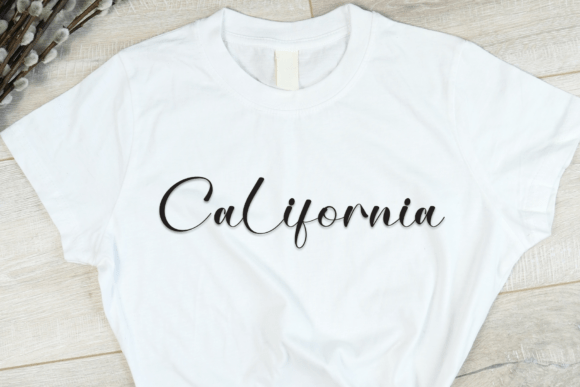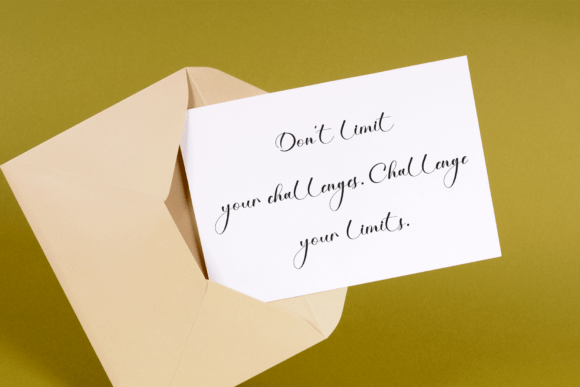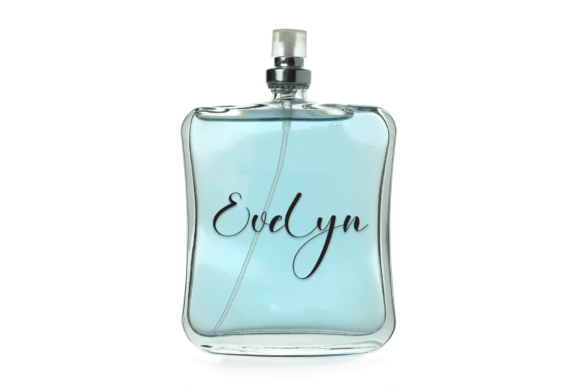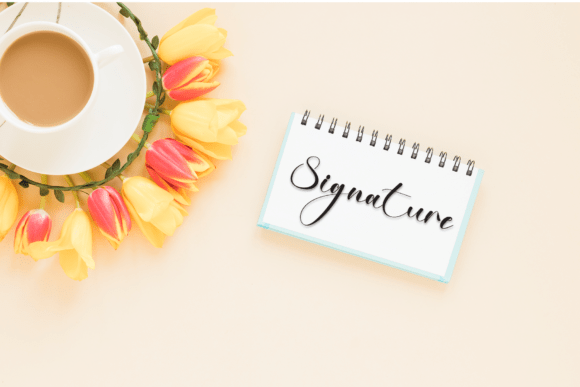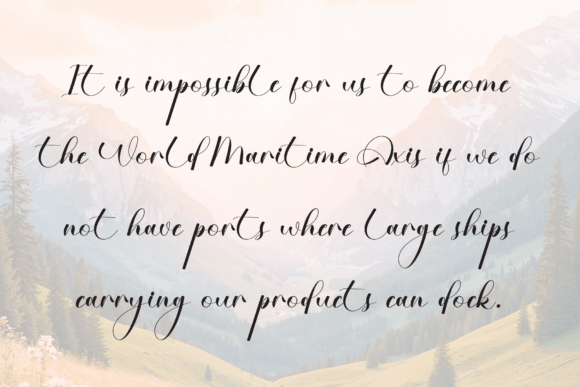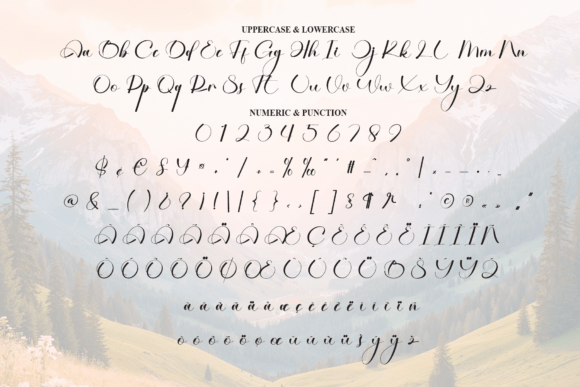
The Perfect Script Font for Designers: Beautiful Font
Have you ever stumbled upon a font that immediately sparks inspiration and makes you want to create something beautiful? For many designers, that moment is when they lay eyes on the Beautiful Font. This stylish script font exudes elegance and contemporary charm, making it a go-to choice for logos, invitations, packaging, and social media graphics.
The Beautiful Font is a masterclass in balancing modernity and classic charm. Its fluid curves and carefully crafted letterforms evoke the beauty of hand-drawn calligraphy, while its natural flow and polished details deliver a refined and sophisticated touch to any design. Whether you’re a seasoned designer or just starting out, the Beautiful Font is a valuable addition to your toolkit, offering versatility and visual appeal that’s hard to resist.
Key Features of Beautiful Font
- Unique Characteristics: Beautiful Font features a distinctive, elegant design with intricate details and subtle flourishes, making it perfect for creating visually stunning documents, posters, and advertisements.
Designer Review: Beautiful Font
I recently had the chance to work with the Beautiful Font, and here’s my honest take.
- The font is indeed beautiful, with elegant curves and a refined aesthetic. It’s perfect for high-end branding or design projects.
- The font is highly customizable, with a wide range of styles and sizes to choose from. This makes it a great choice for designers who like to experiment with different looks.
- The font is also highly legible, making it a great choice for body text or headlines.
- The font may not be as versatile as some other fonts, and it may not be suitable for all types of design projects.
Overall, I think the Beautiful Font is a great choice for designers who are looking for a high-end, elegant font. However, it may not be the best choice for every project, and it’s definitely not the most budget-friendly option. With its high level of customization and beautiful aesthetic, I can see why it’s a popular choice among designers.
Tips for Getting the Most Out of Beautiful Font
For optimal results, use Beautiful Font in conjunction with a clear and simple design. Avoid using too many fonts or excessive text, as this can detract from the overall impact of the font.
Beautiful Font is ideal for:
- Printed materials such as business cards and brochures